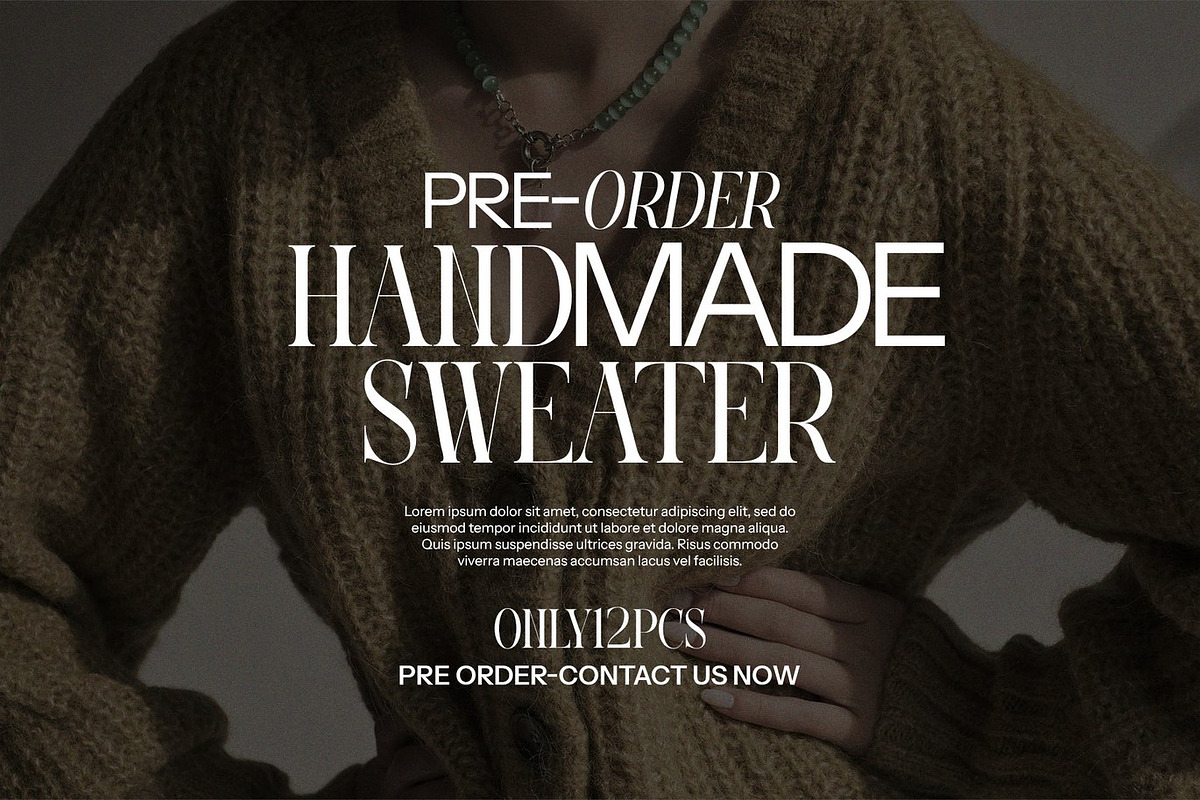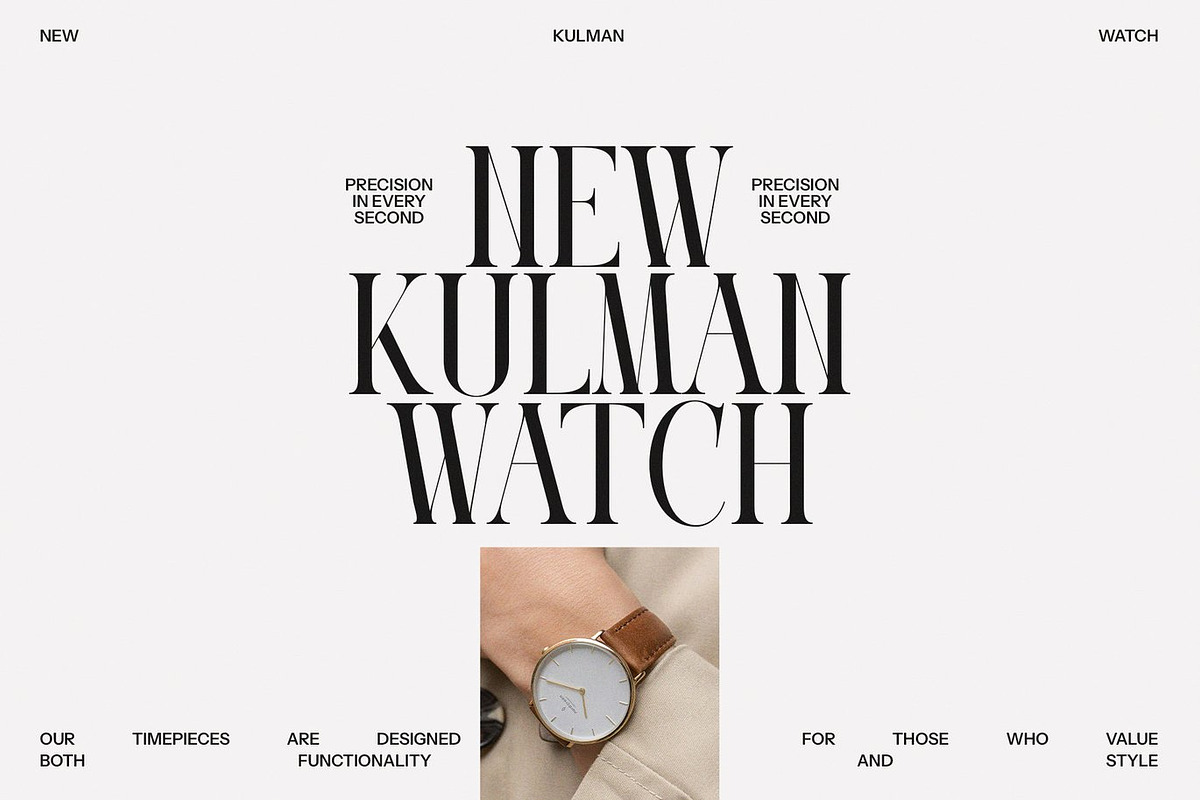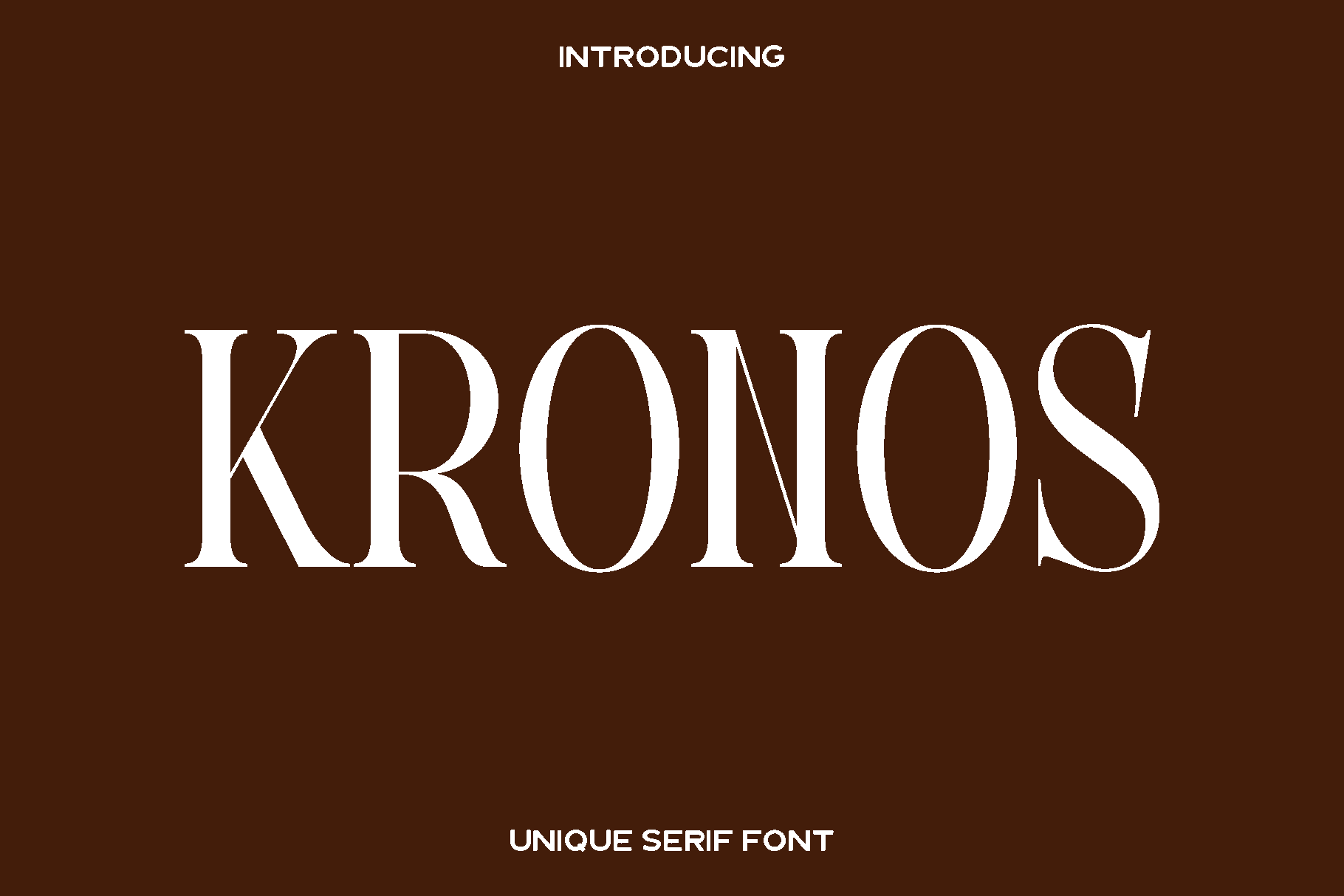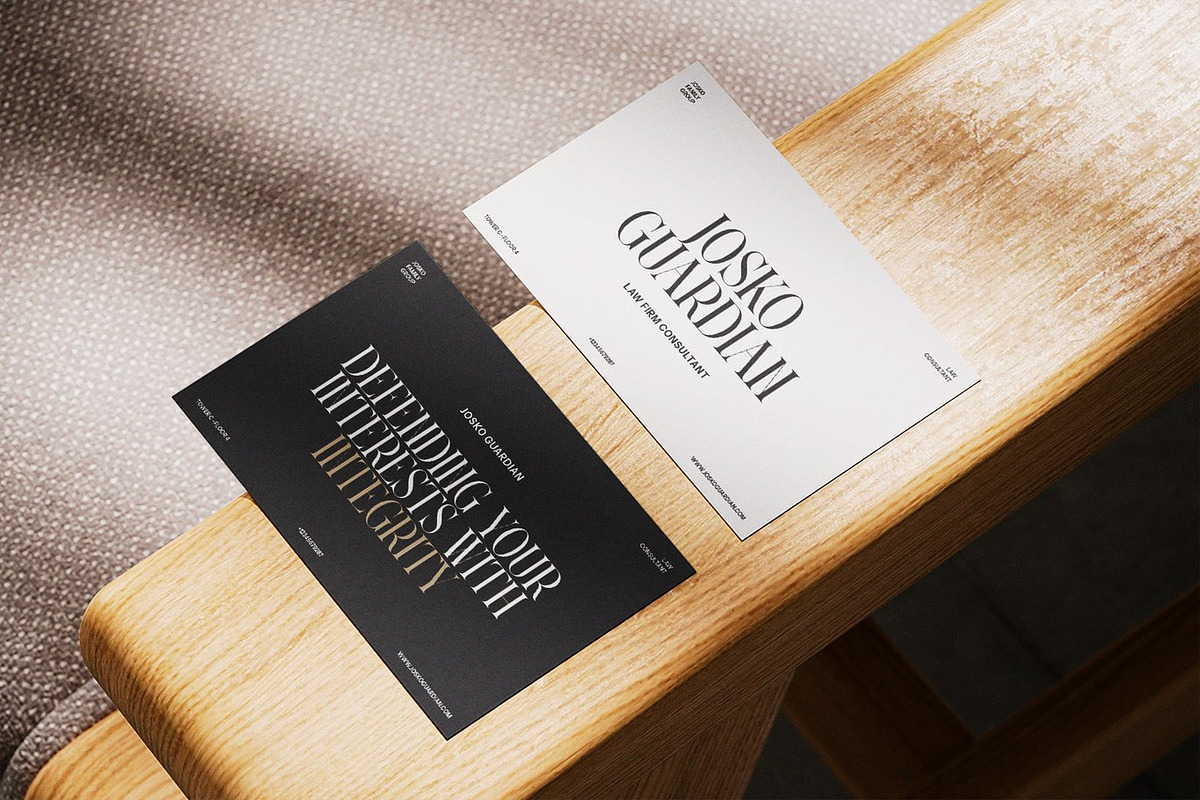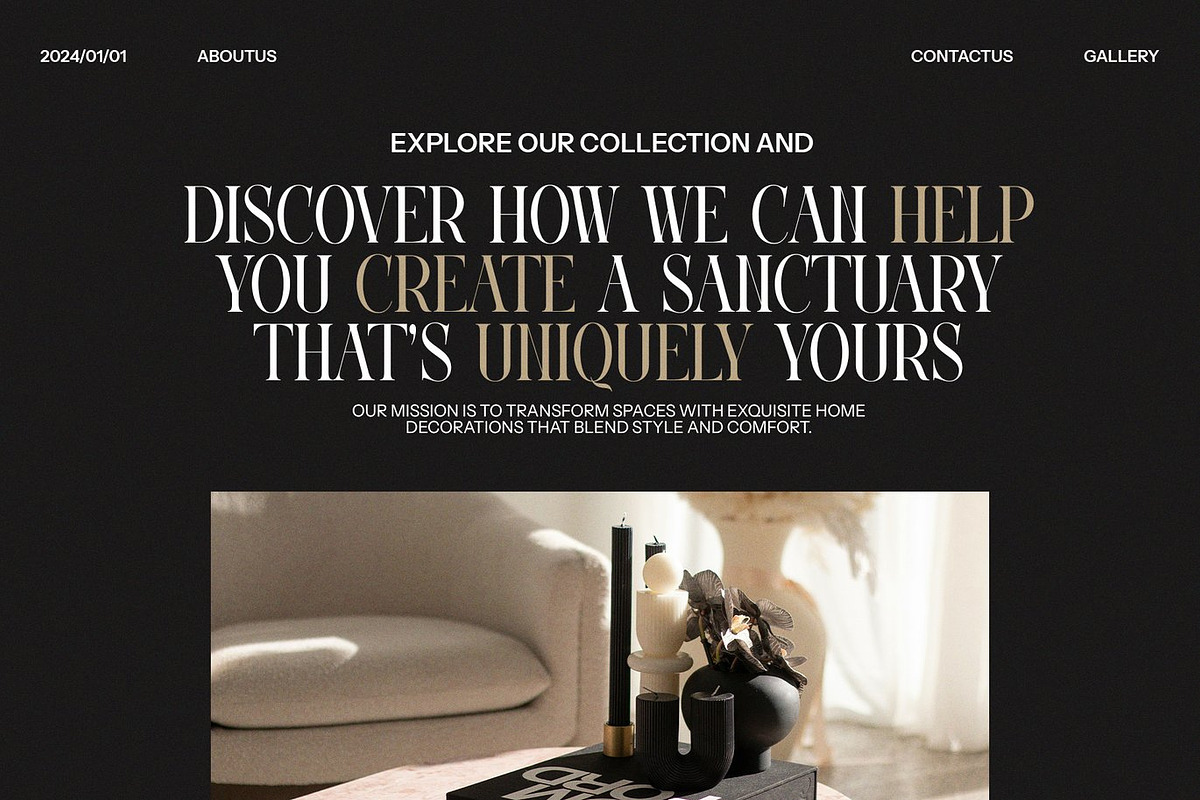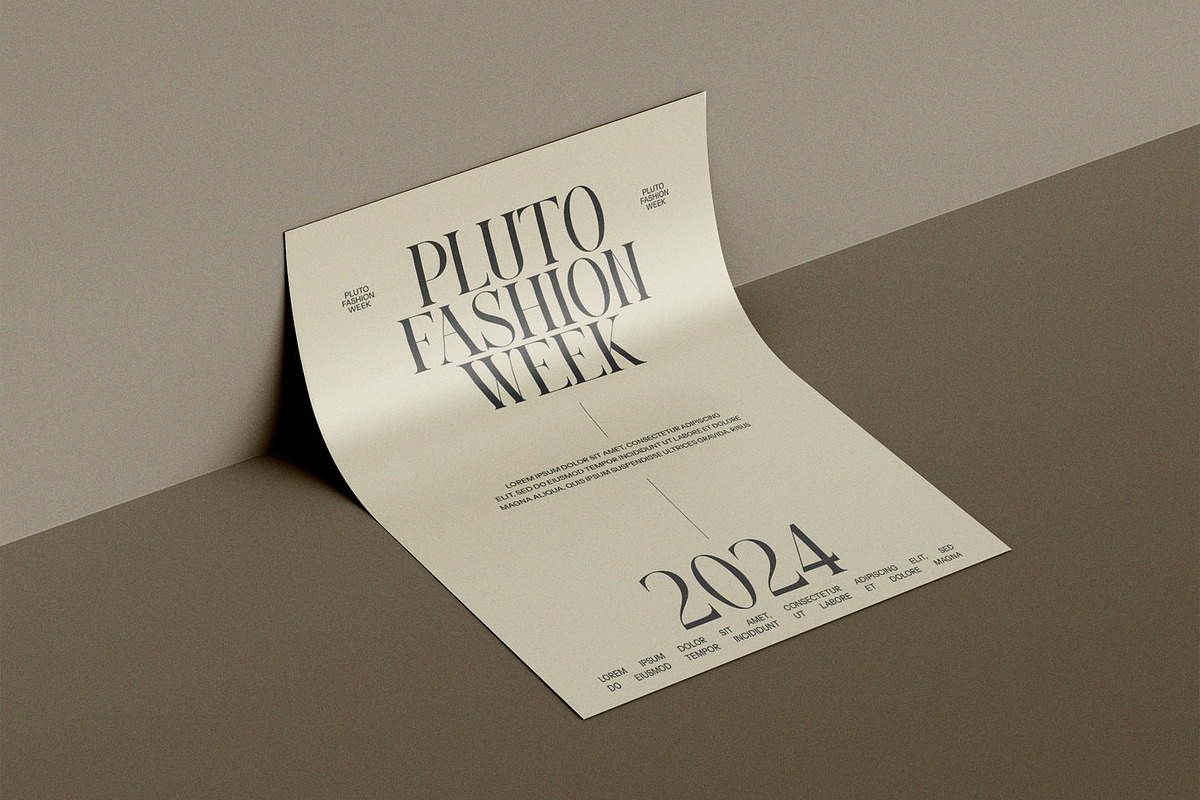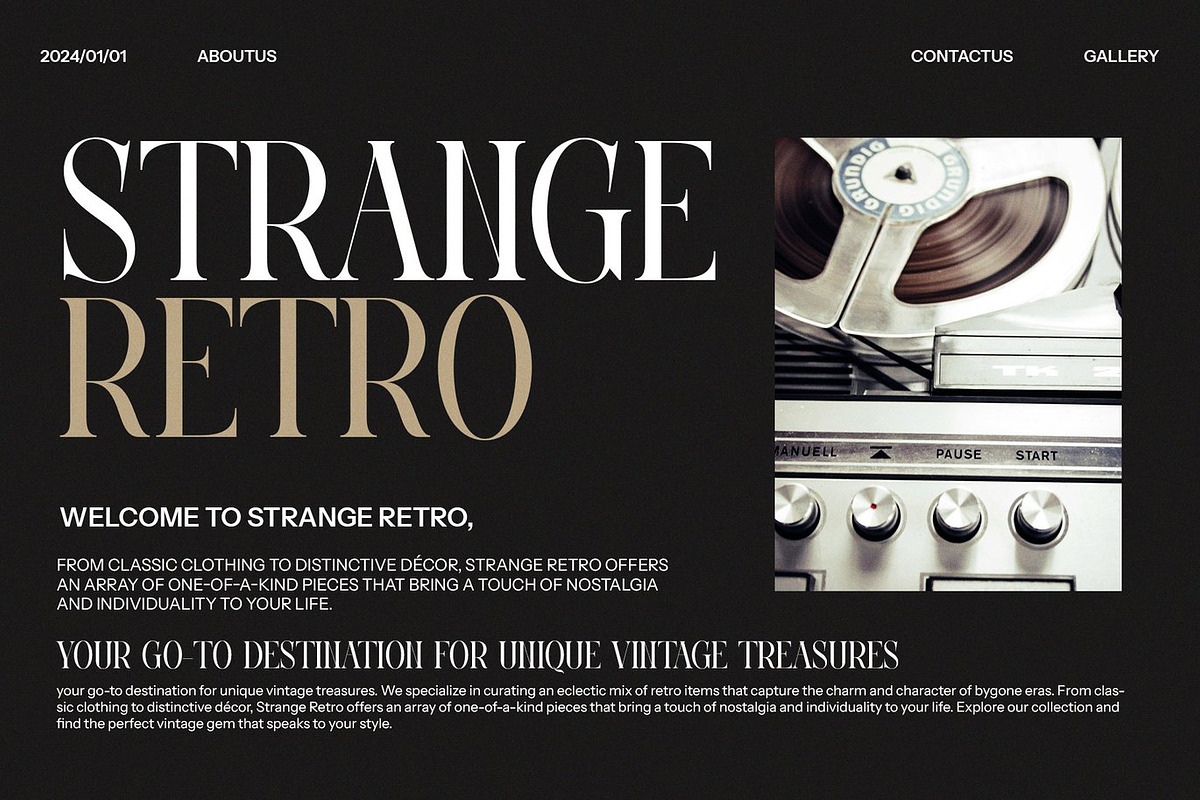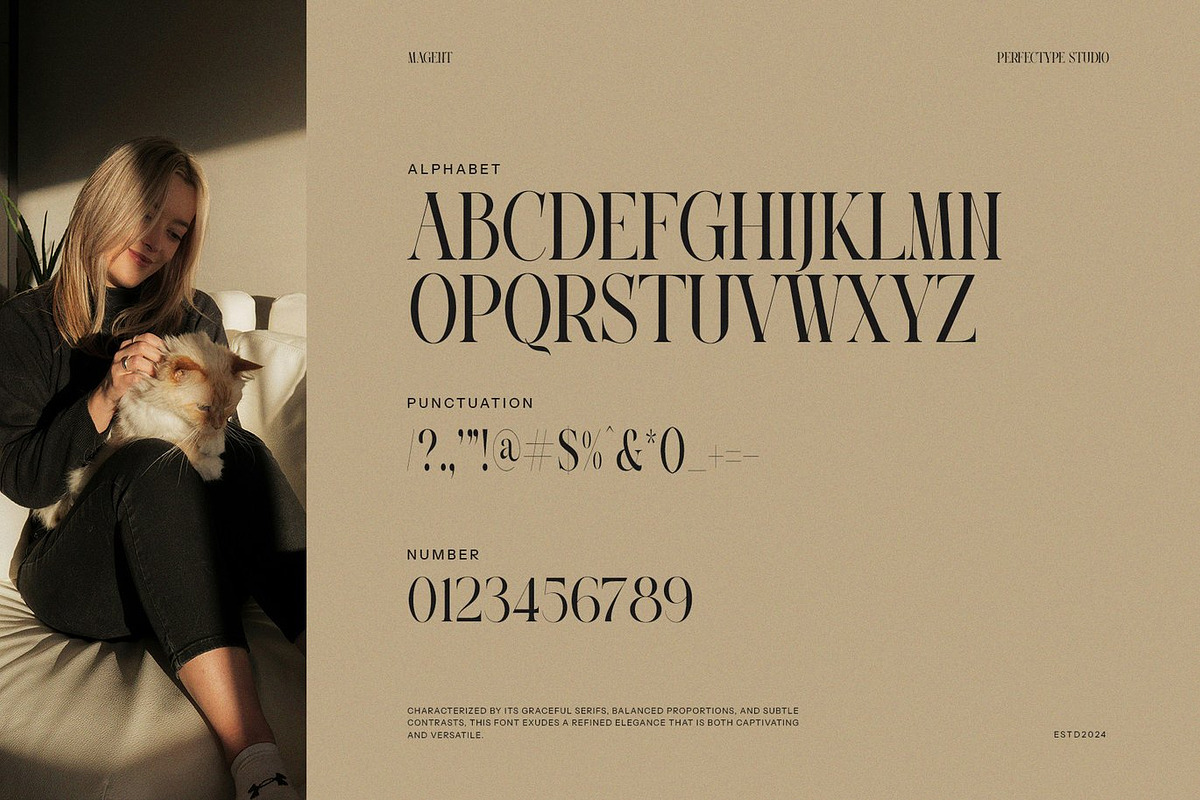
Kronos - Elegant Serif Font
Kronos is a refined serif font designed to bring elegance, luxury, and timeless sophistication to your creative projects. Crafted with beautifully balanced shapes and graceful details, Kronos captures the essence of high end design. Its smooth serifs and polished structure create a classic yet modern look, making it the perfect choice for designers who want to add a touch of exclusivity and charm to their work.
Kronos shines across a wide range of applications. It is ideal for branding projects, premium logos, social media visuals, wedding designs, product packaging, labels, photography watermarks, invitations, stationery, and high end advertisements. Its excellent legibility ensures it performs beautifully in both large display text and delicate typography, offering versatility for designers working on print or digital projects.
This typeface is meant to elevate your visual identity with a sense of class and refinement. Whether you are creating elegant editorial layouts or luxury branding concepts, Kronos delivers a polished and timeless appeal that enhances the overall experience of your design.
Kronos Serif Font Features:
• Standard characters
• Numbers and punctuation
• Accented characters for Western European languages